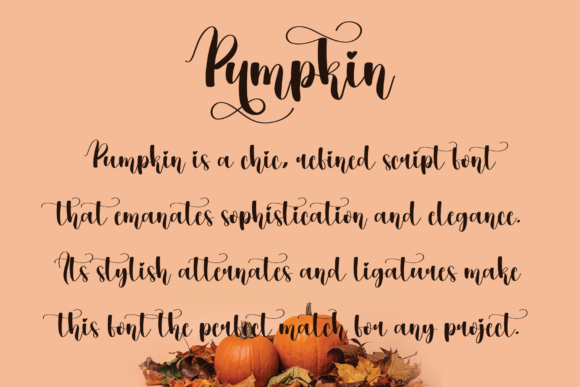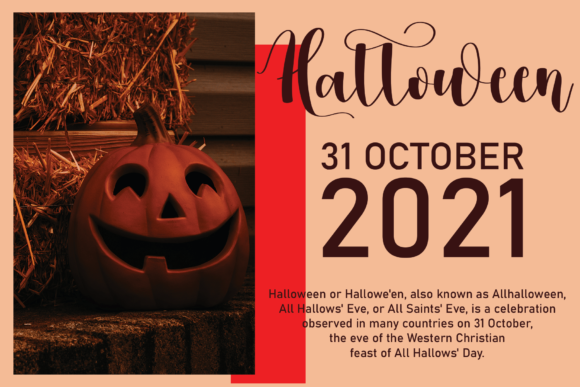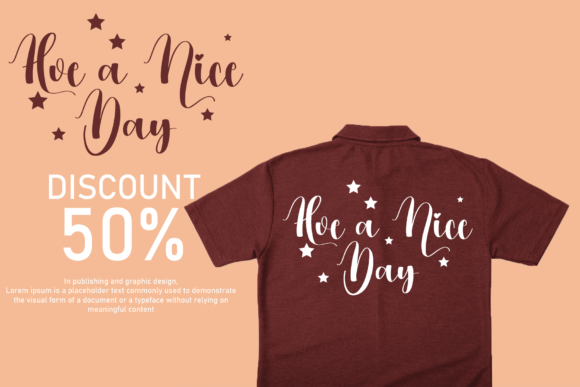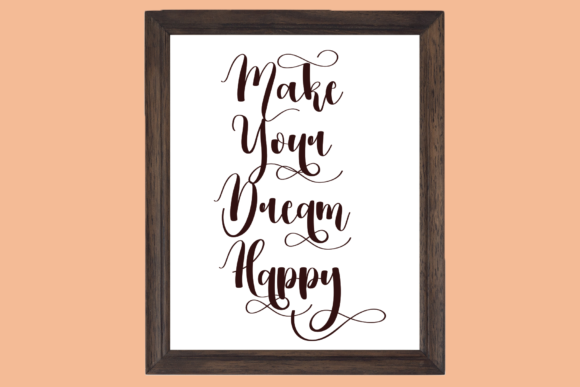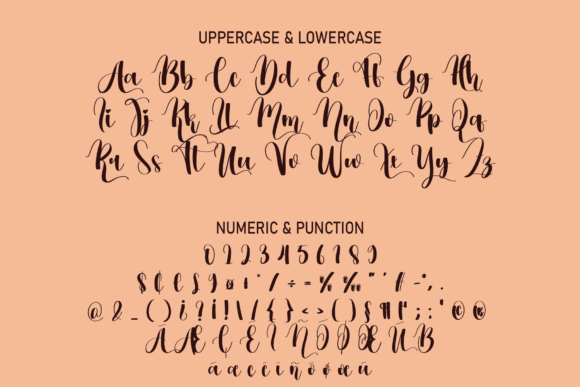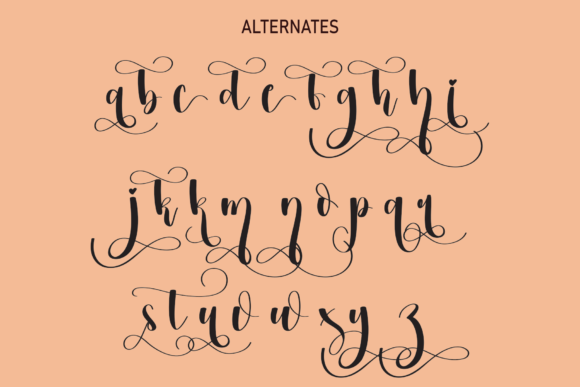
Introduction to Pumpkin Font
Pumpkin is a romantic and sweet calligraphy typeface with characters that dance along the baseline.
Key Features of Pumpkin Font
Why Choose Pumpkin Font?
Pumpkin Font offers exceptional quality and versatility, making it a valuable addition to your design toolkit. Whether you’re creating for personal projects or commercial use, Pumpkin Font delivers professional results.